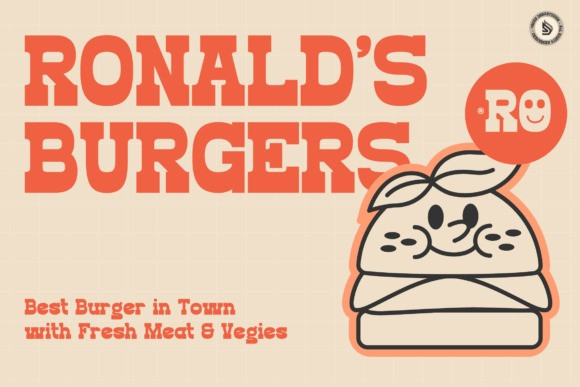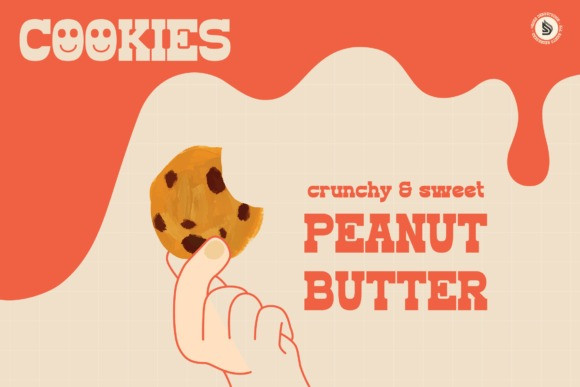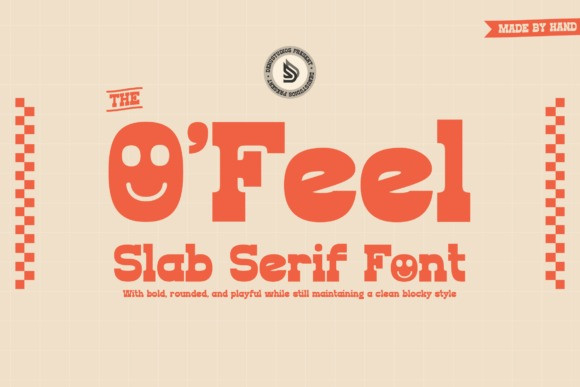
O’Feel Font
O’Feel Font is a bold and playful slab serif font with a retro twist and a cheerful personality. Its rounded edges and chunky letterforms make it perfect for fun branding, eye-catching headlines, kids’ designs, and quirky packaging. While playful, O’Feel maintains a clean, structured look—ideal for projects that need a balance of fun and professionalism.